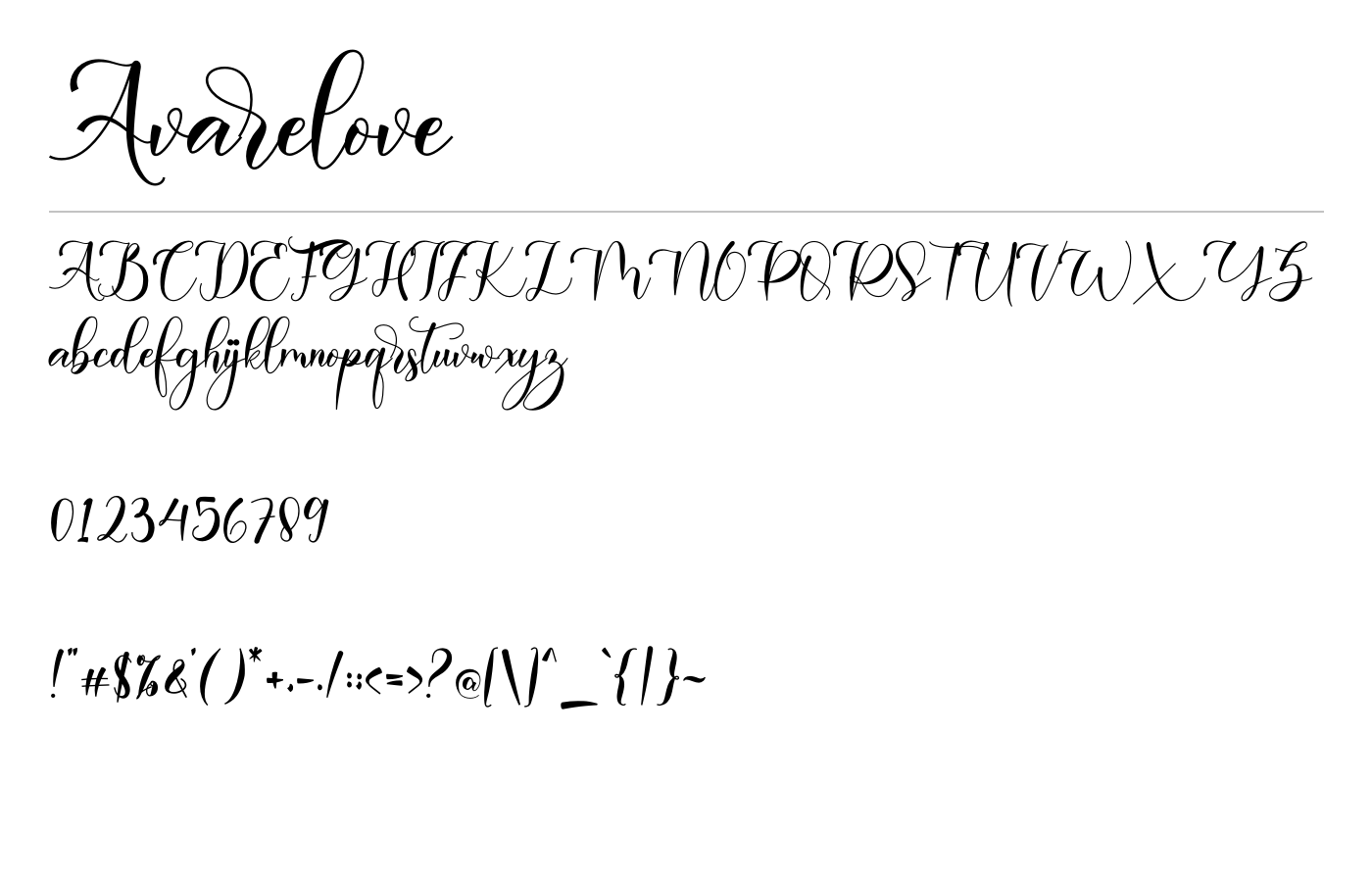
Avarelove is an elegant script font with graceful, flowing strokes that evoke a sense of romance and sophistication. Its smooth, calligraphic lines and delicate curls make it perfect for wedding invitations, luxury branding, and feminine designs that require a stylish, handwritten touch. With its refined personality and charming flair, Avarelove adds a beautifully personal and artistic feel to any creative project.
Avarelove Font
About Avarelove Font